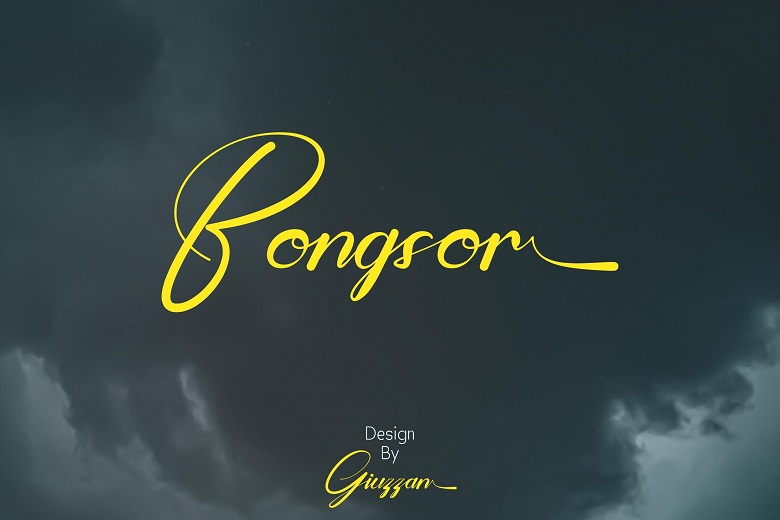
Bongsor Font
Introducing Bongsor – a beautiful handwritten font that incorporates creativity with elegance and a contemporary bent. Easy to use strokes and characters with detailed work makes Corel Paint and handwriting more personal to you designs. Great for invitation, posters, and logos, Bongor is a very loveable font, giving a real handwriting touch to your text. Let yourself be inspired by Bongsor and add uniqueness that marks each of your projects with the company.
Bongsor Handwritten Script Font